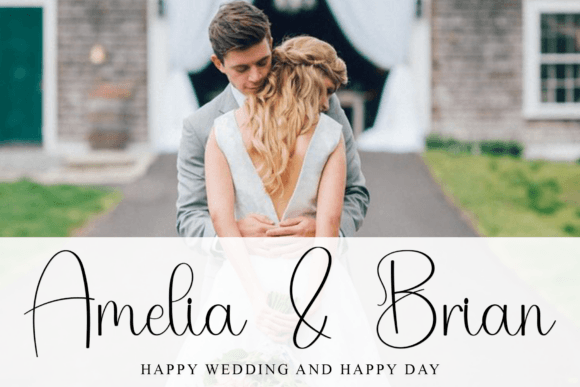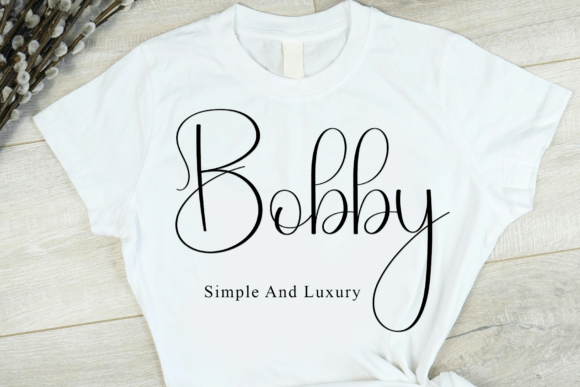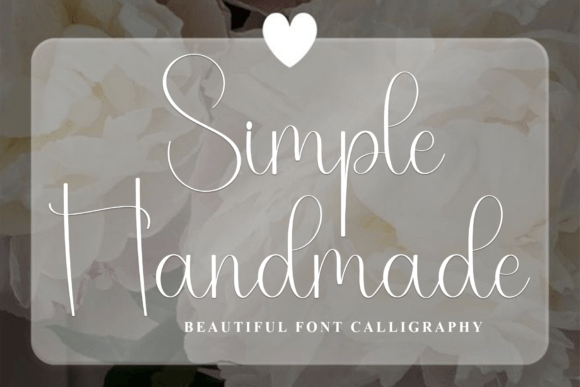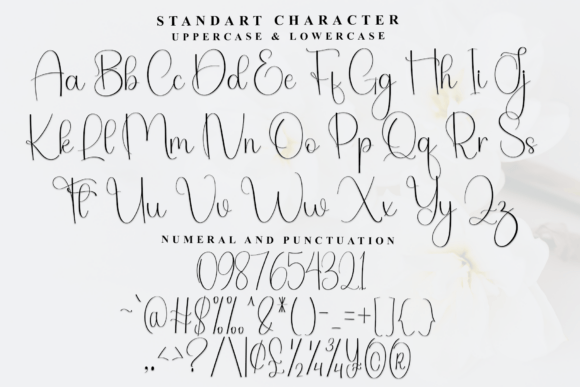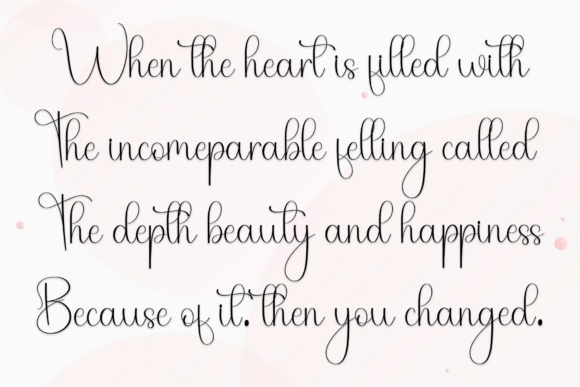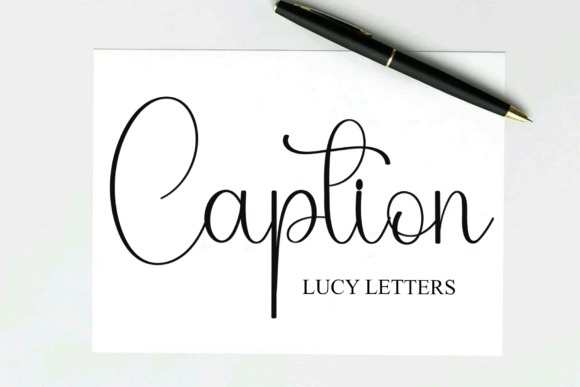
Simple Embroidey Font – Free Download
Introduction to Simple Embroidey Font
Simple Embroidey is a casual and creative font that exudes warmth and friendliness.
Key Features of Simple Embroidey Font
Why Choose Simple Embroidey Font?